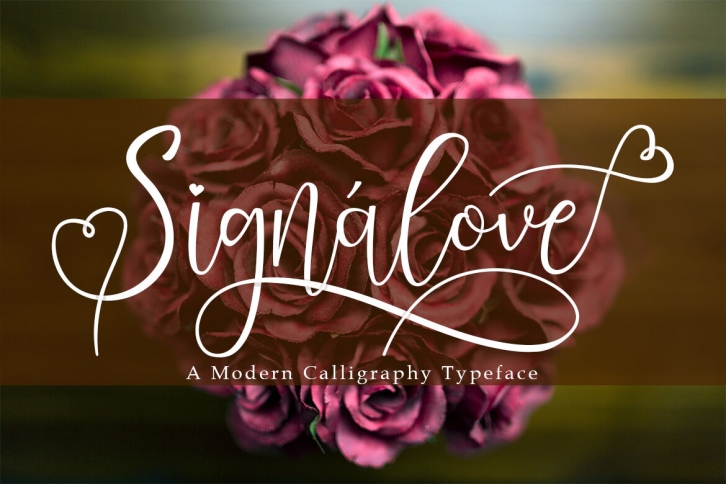
Signalove is a modern calligraphy typeface. With a natural and beautiful touch will make your design to be awesome. It has a various of alternates that perfect to combine and create a beautiful design or craft you love with Singnalove, the modern calligraphy typeface.